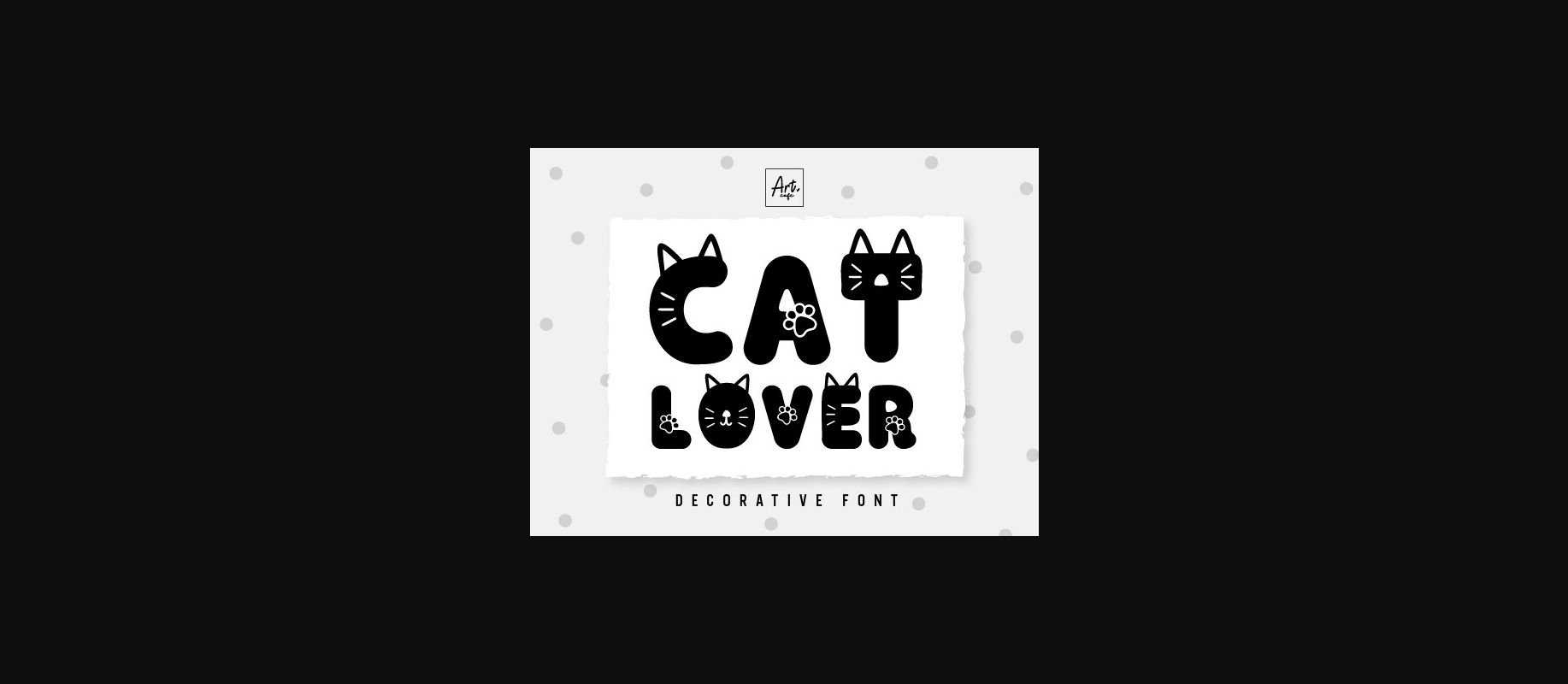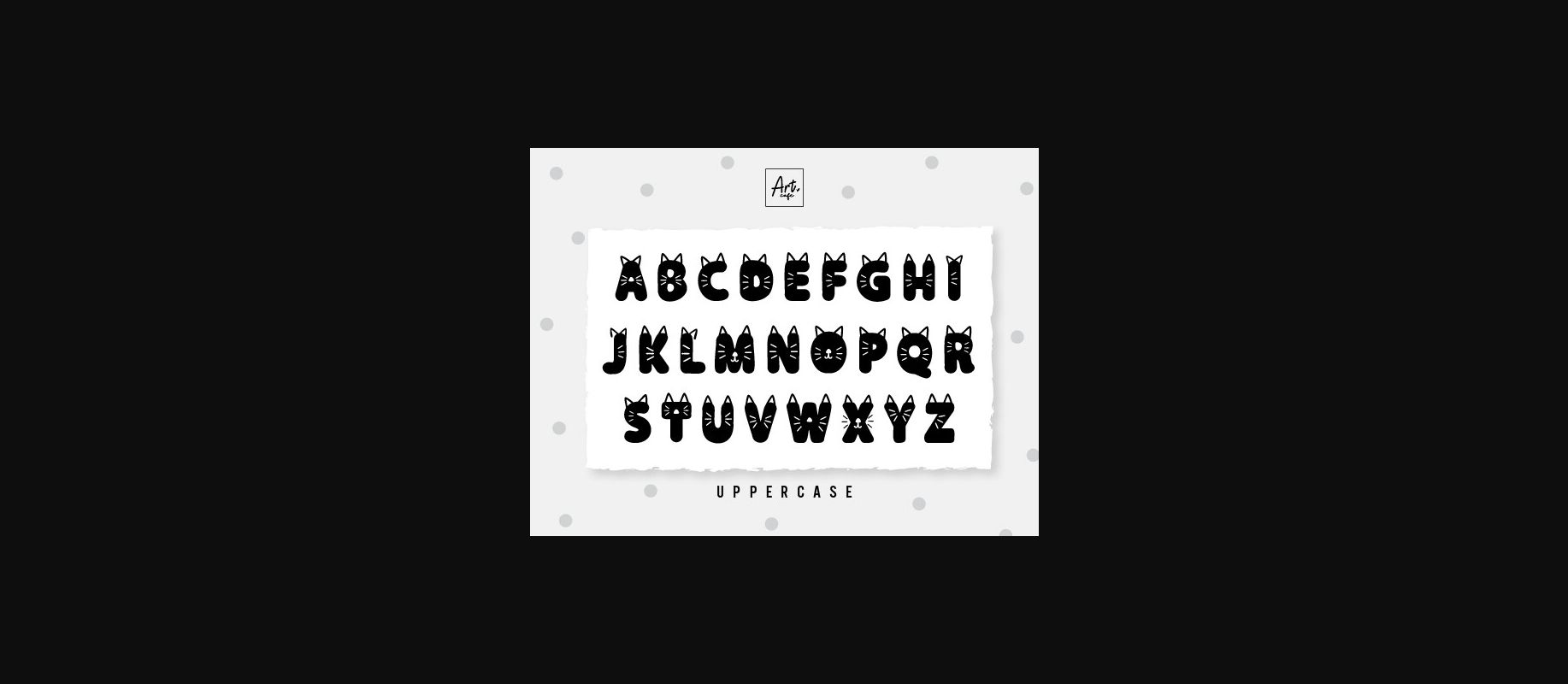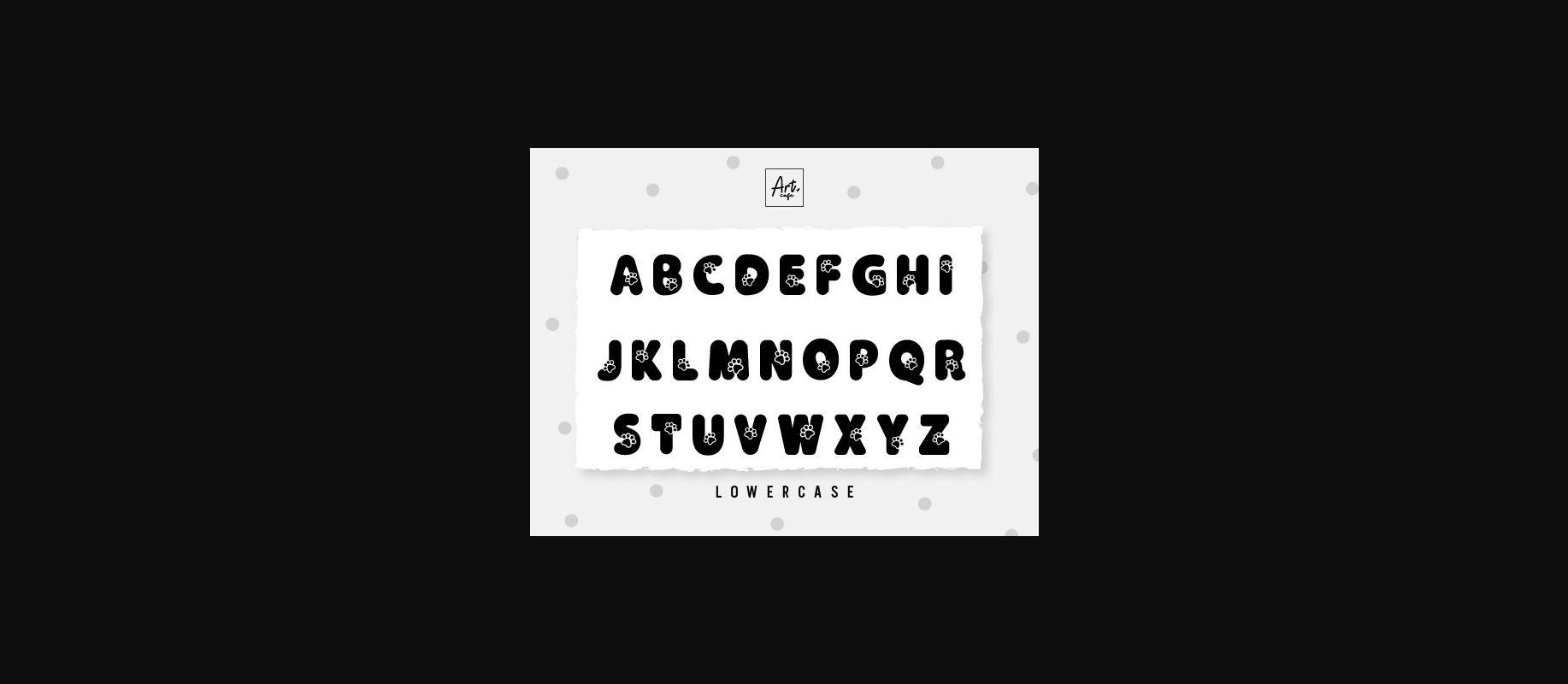
About Cat Lover Font
Cat Lover font is cute and suitable for dog lovers and kids. This font is bold, it offers support for all characters of the English language for display font.
It can be used for any design project e.g. posters, t-shirts, mugs, kidβs projects, planners, stickers, home decor, etc.